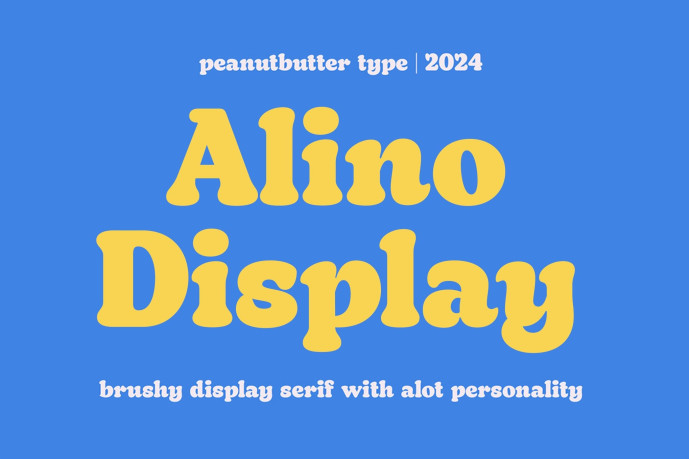
Alino Display Font
Alino Display Serif typeface characterized by its brushy, expressive personality. With its artistic and dynamic strokes, Alino brings a handcrafted feel to any design. This typeface is particularly well-suited for a range of creative projects, from printed materials like posters, invitations, and editorial layouts, to branding and logo design. Its distinctive serif style combines traditional elegance with a modern, textured flair, making it a versatile choice for designers looking to add a unique, personal touch to their work.
Whether used in headlines, packaging, or identity projects, Alino’s bold and stylish character ensures your message is both impactful and memorable. files include: OTF files